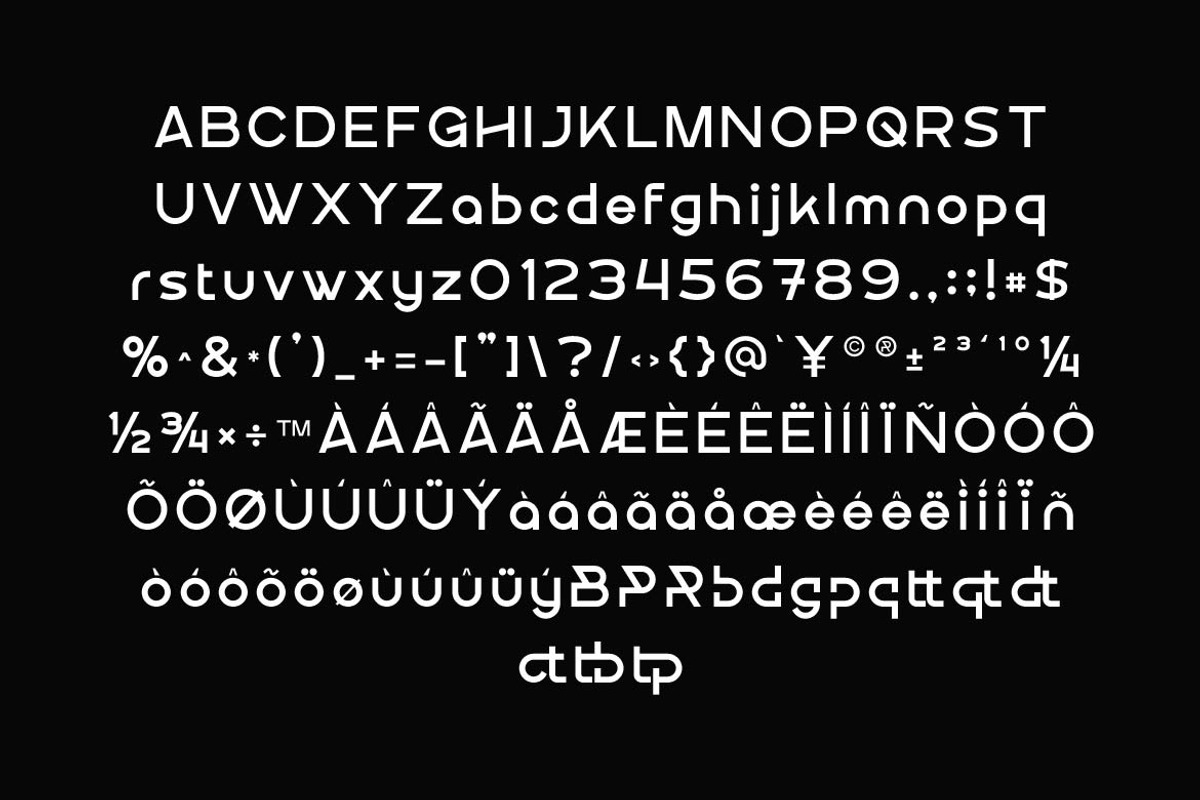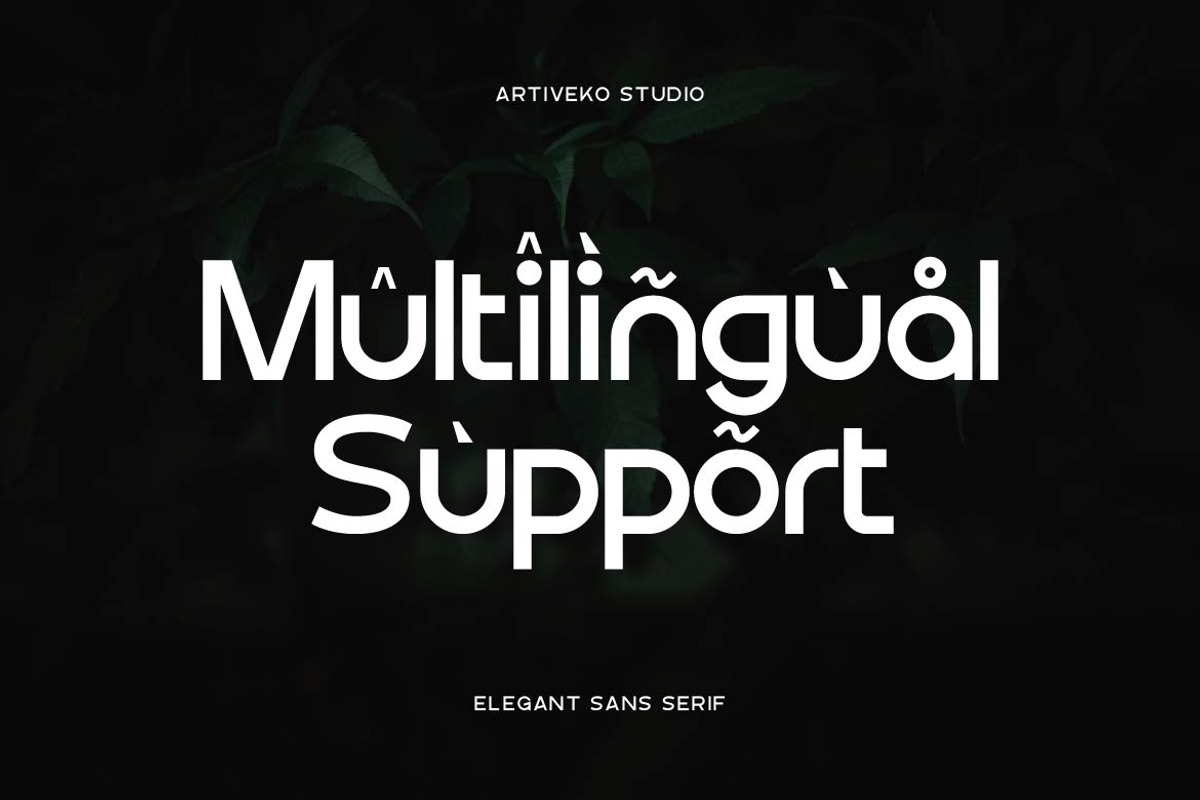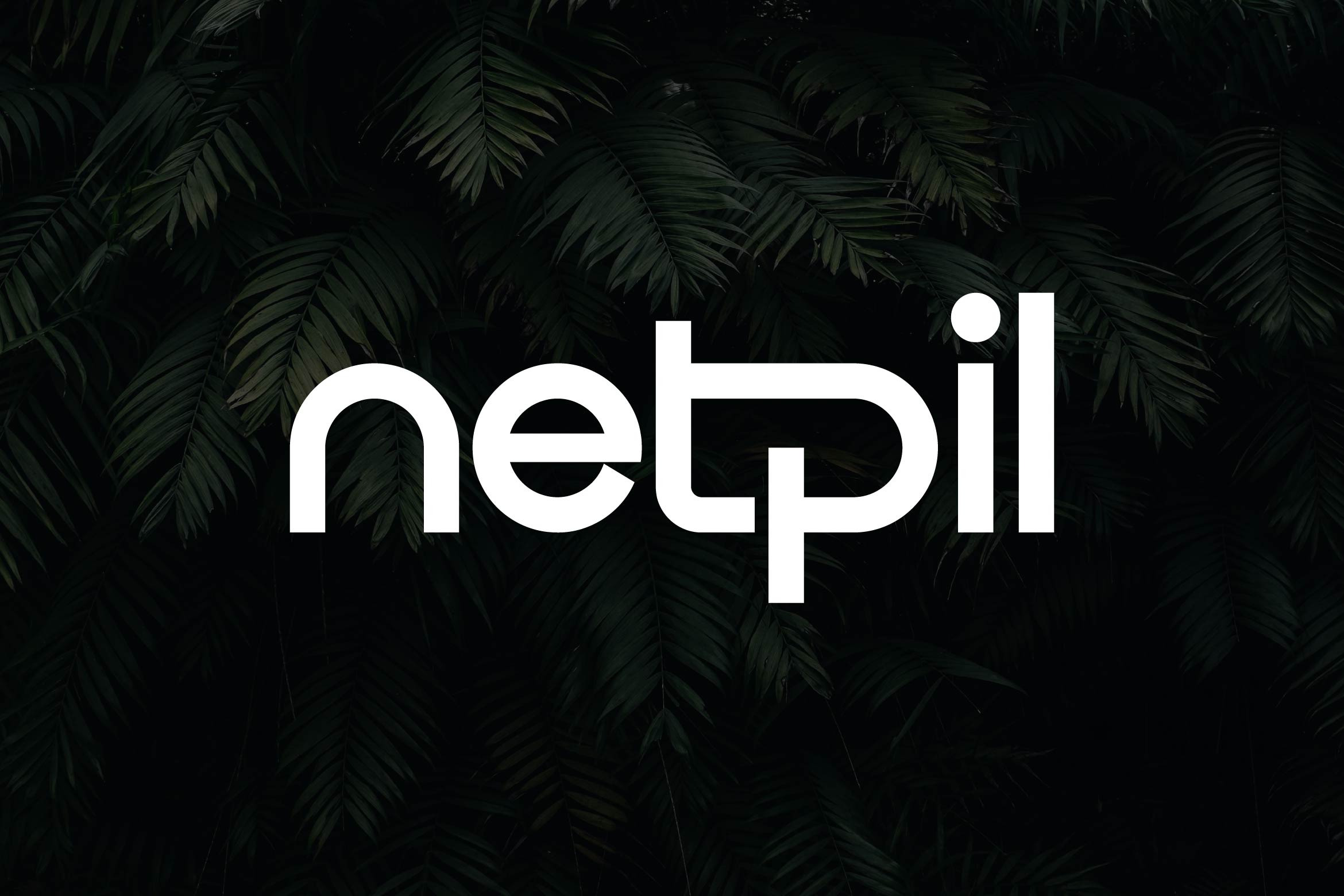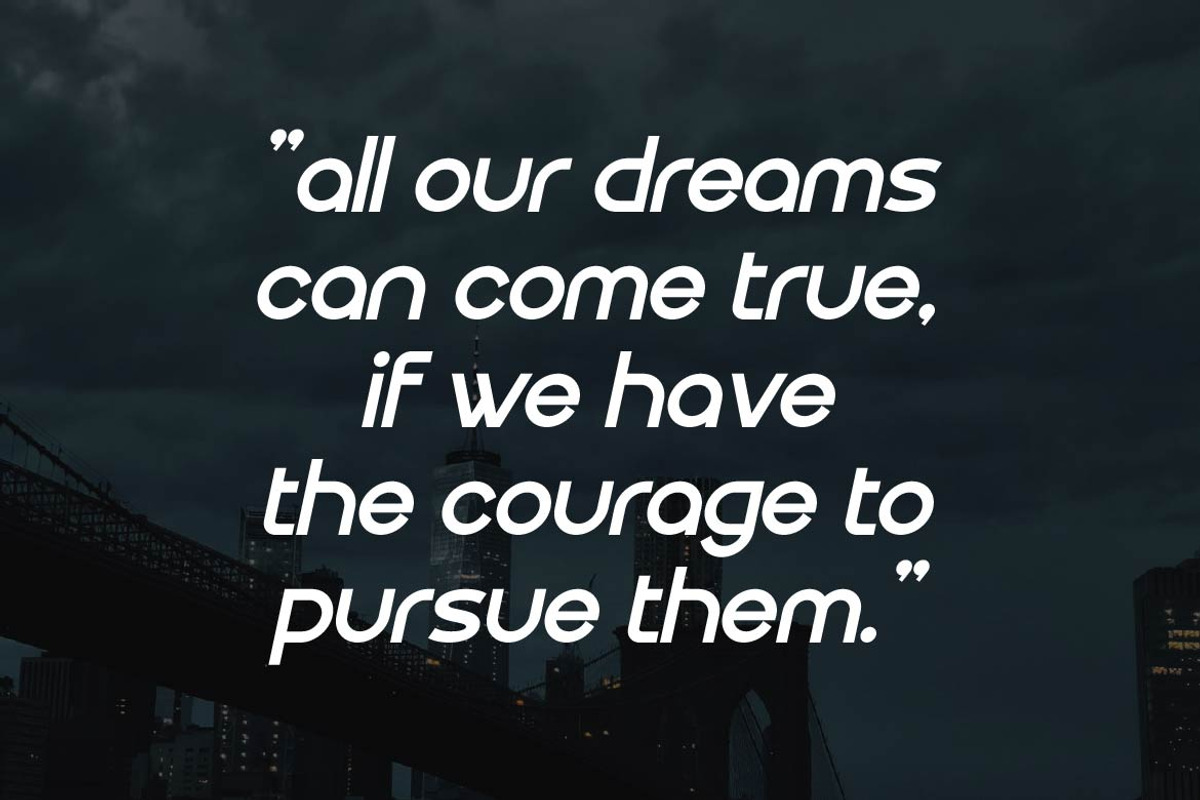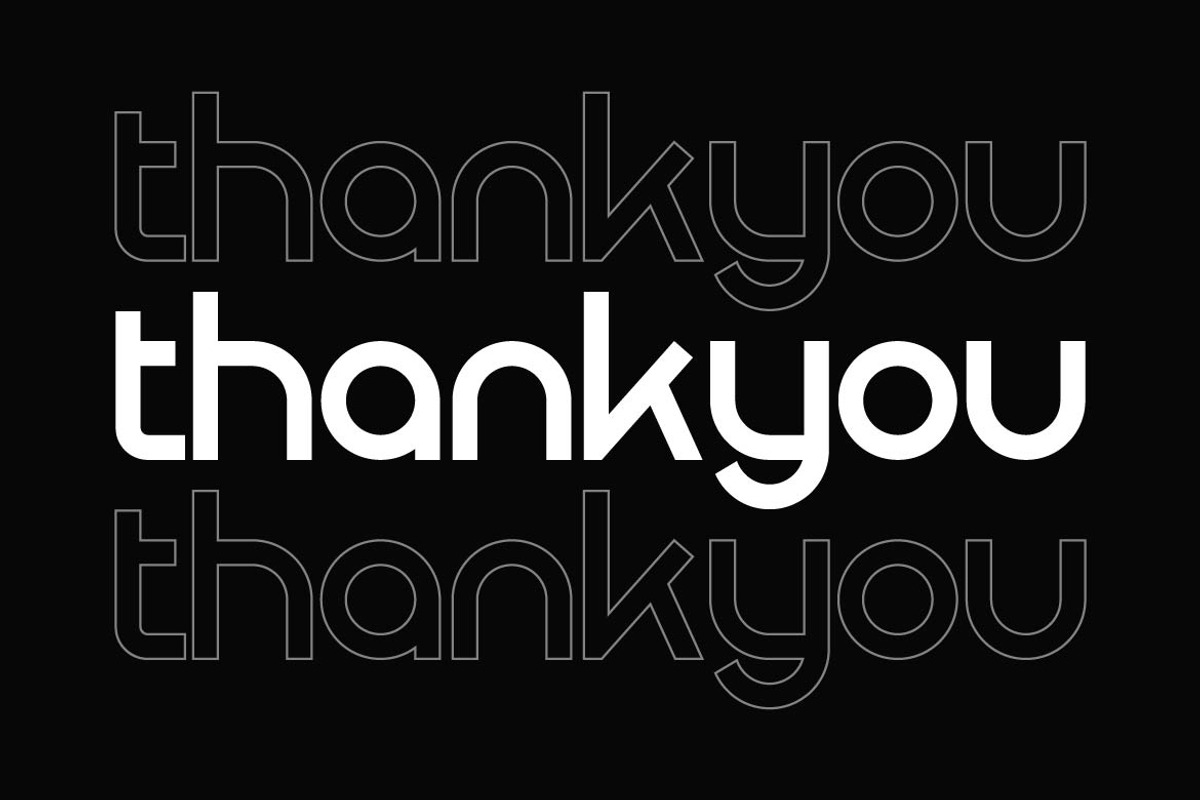
Netpil - Elegant Logo Font
Netpil is a stylish and contemporary sans serif font designed for bold logo design and creative branding. With its clean lines, unique character shapes, and balanced proportions, Netpil brings a fresh modern vibe that’s perfect for building memorable visual identities. Whether used for tech startups, fashion labels, lifestyle brands, or digital platforms, Netpil ensures your designs look sharp, professional, and distinctive.